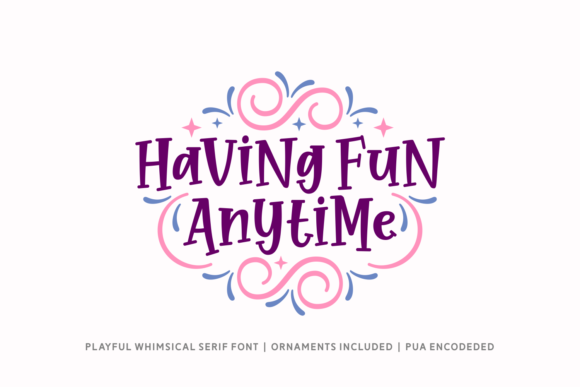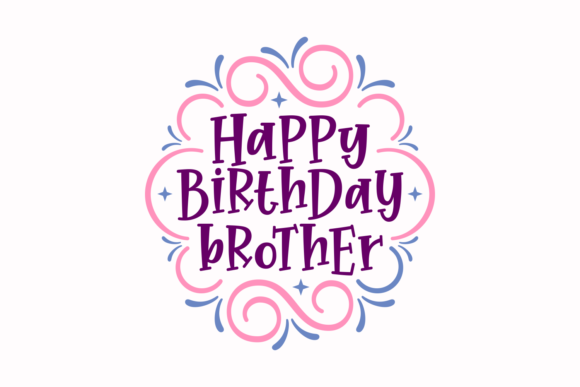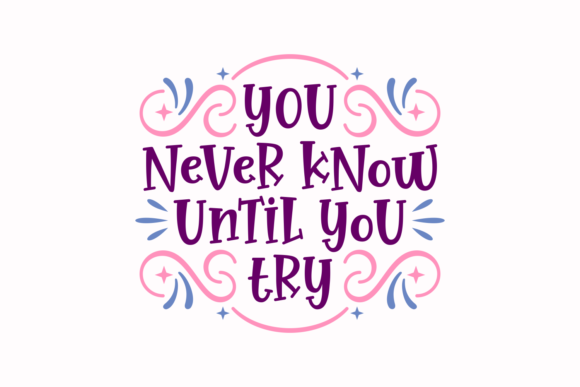
Having Fun Anytime Font
About Having Fun Anytime Font
The Having Fun Anytime is an amazing whimsical font. It has a playful style and is perfect for adding a striking, yet fun touch to your designs.